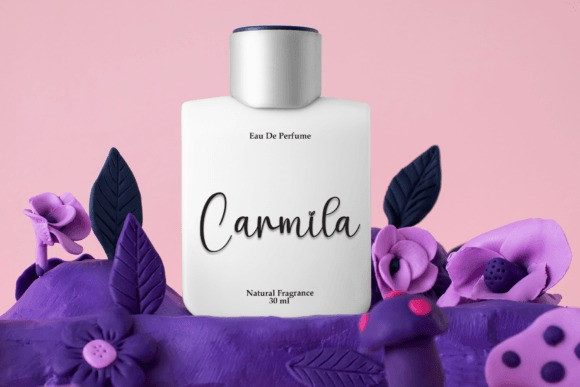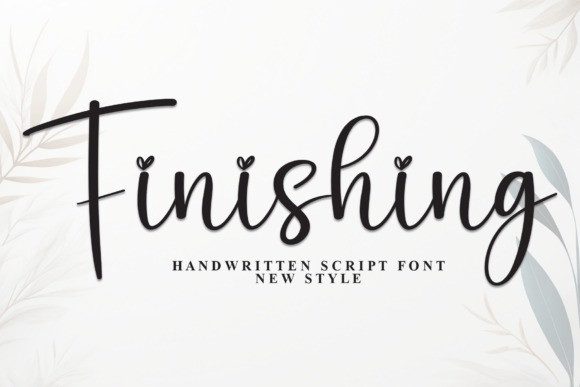
Finising Script Font
Finising Script Font is a playful and charming script font with smooth, flowing letters. It has a fun, handwritten style that’s perfect for holiday designs, greeting cards, and festive projects. Its cute and friendly look adds a warm, joyful touch to any design.